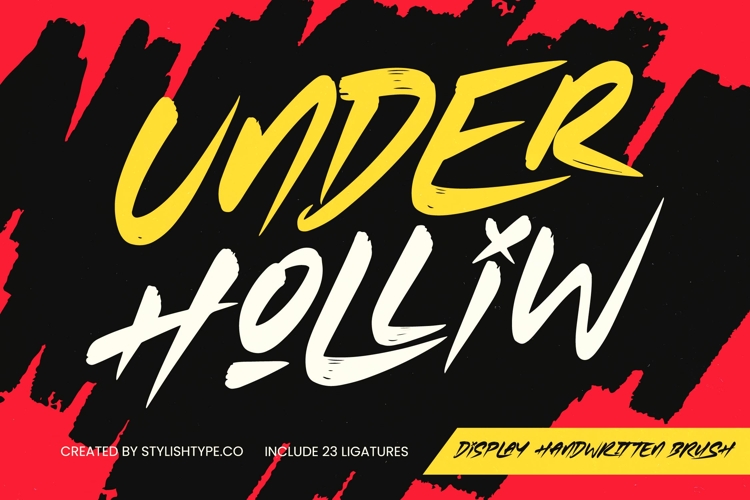
Under Holliw - Display Handwritten Brush
Command instant attention with the raw energy of Under Holliw - Display Handwritten Brush. This typeface embodies a fearless urban aesthetic through its dynamic brush strokes and high-octane energy. Designed for creators who refuse to blend in, Under Holliw - Display Handwritten Brush offers a strong visual impact that captures the essence of street culture and modern artistic expression. Its bold textures and aggressive motion make every character feel alive and uniquely crafted for maximum engagement.
Engineered for high-impact visual communication, Under Holliw - Display Handwritten Brush is the perfect choice for aggressive branding and bold packaging. This versatile font shines in streetwear apparel design, music event posters, and extreme sports graphics where personality is paramount. Whether you are crafting high-contrast editorial layouts or cinematic titles, it provides a cutting-edge look that resonates with a youth-driven audience, ensuring your message stands out in a crowded digital landscape.
Expand your creative reach globally with a typeface built for the modern world. With its extensive multilingual support, Under Holliw - Display Handwritten Brush adapts seamlessly across global markets, making it incredibly versatile for international projects. This ensures that your brand’s high-energy voice remains consistent and powerful regardless of geographic borders. By integrating Under Holliw - Display Handwritten Brush into your workflow, you gain a comprehensive typographic solution that speaks a universal language of style and rebellion.